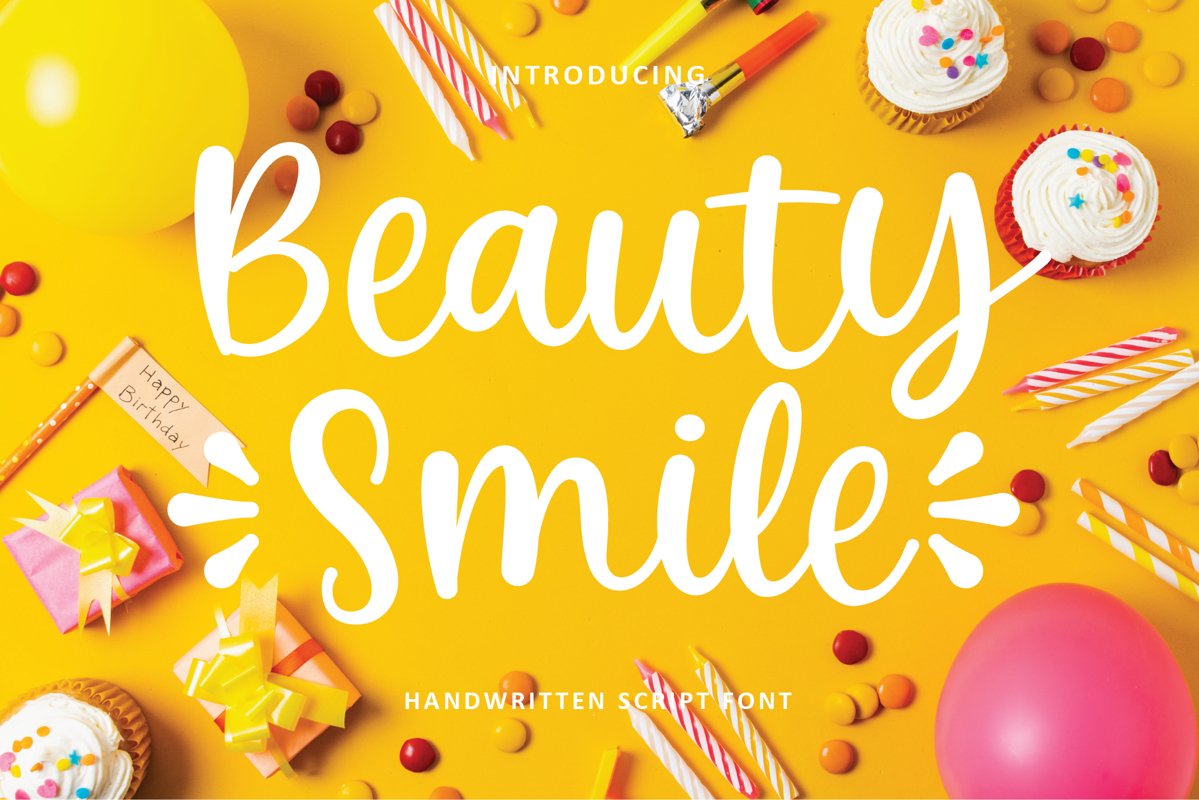
Beauty Smile
Beauty Smile is a handwritten script font, this font is great for your next creative projects such as social media post, instagrm post, quotes, album cover, shirt designs, children's designs and more!
Beauty Smile comes with uppercase letters, lowercase letters, numbers, punctuation and ligature
note : type < or > to show mustache for beginning i=or ending text. For example: on preview image there is Smile text I create by type <Smile>